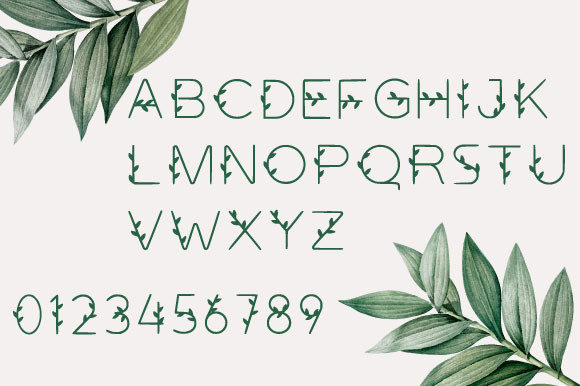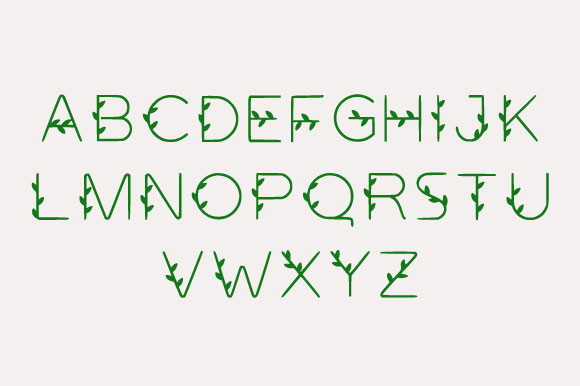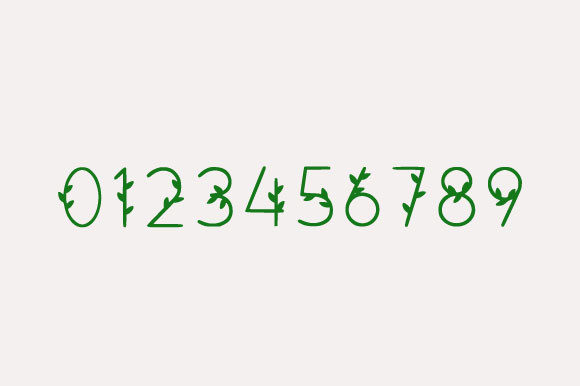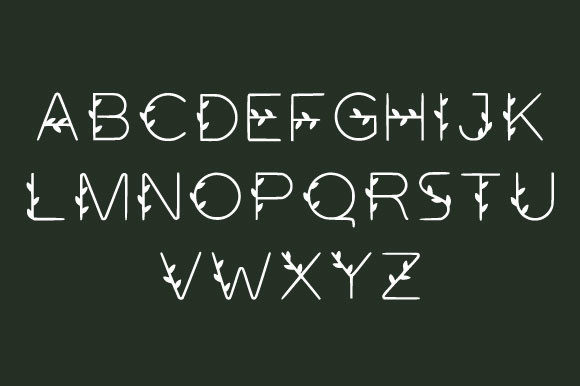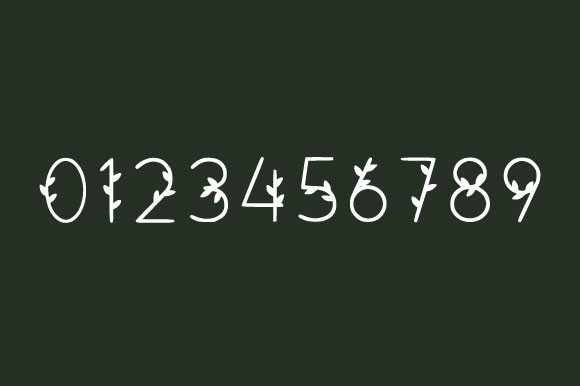
Introduction to Nature Inspired Font Font
Fonts play a crucial role in design, and the Nature Inspired Font font is a typeface that brings both character and versatility to any project. Whether you’re working on a branding project, a website, or a print design, the Nature Inspired Font font offers a unique style that can elevate your work.
Nature Inspired is a delicate and fresh display font.
Key Features of Nature Inspired Font Font
Why Choose Nature Inspired Font Font?
The Nature Inspired Font font is more than just a typeface – it’s a design tool that helps you communicate your message with style and clarity. Its unique character set and versatile design make it suitable for a wide range of applications, from elegant invitations to bold headlines.
With its carefully crafted letterforms and balanced proportions, the Nature Inspired Font font ensures readability and visual appeal across all mediums.
What makes Nature Inspired Font font special?
The Nature Inspired Font font stands out with its unique design, exceptional readability, and versatility across various design applications.